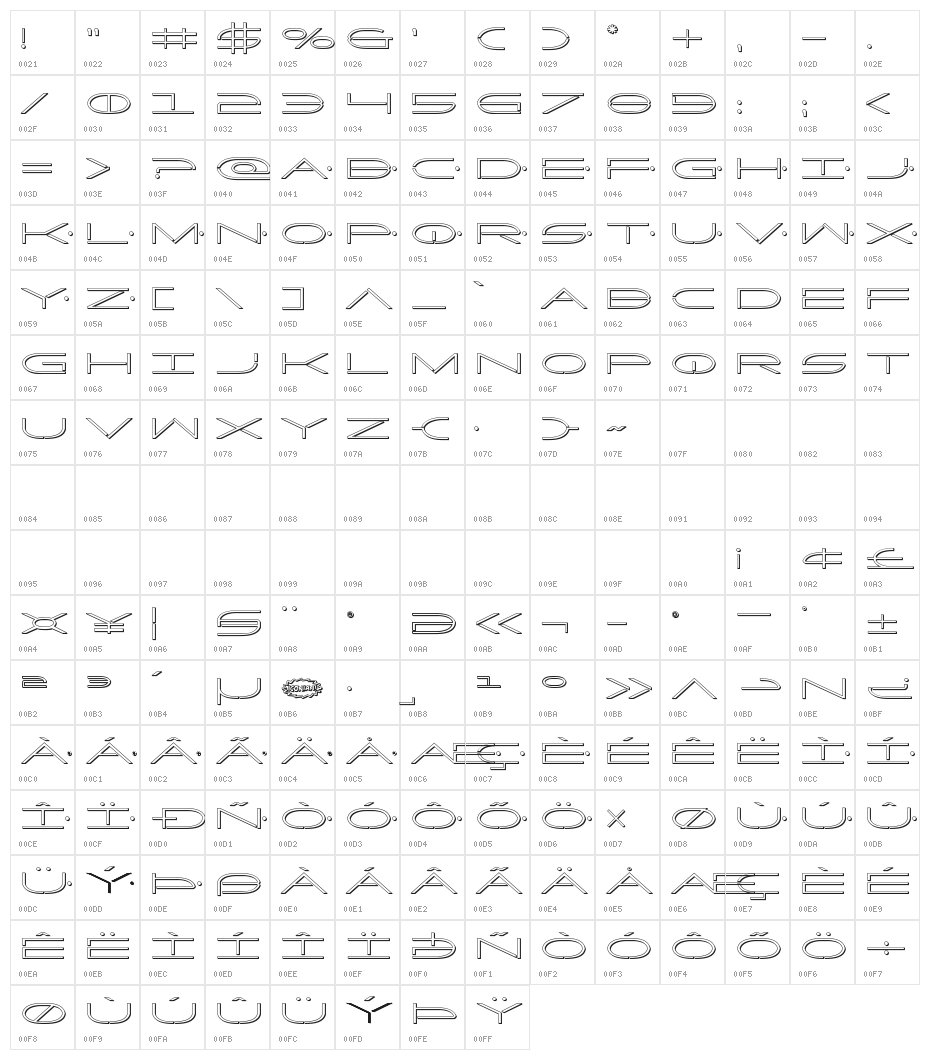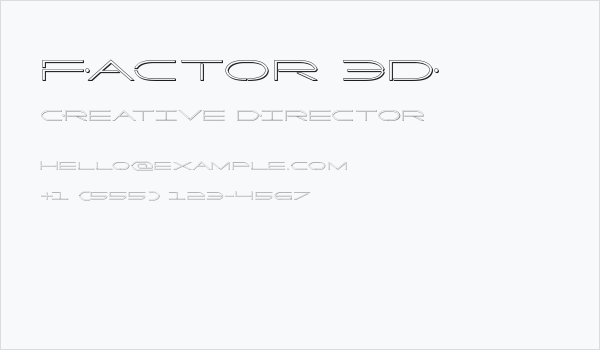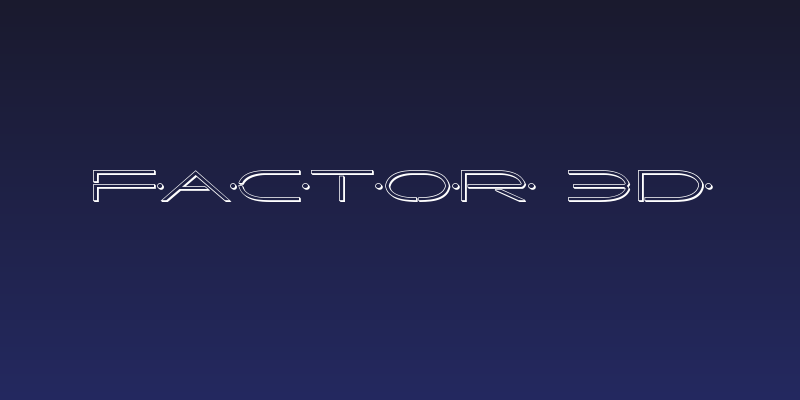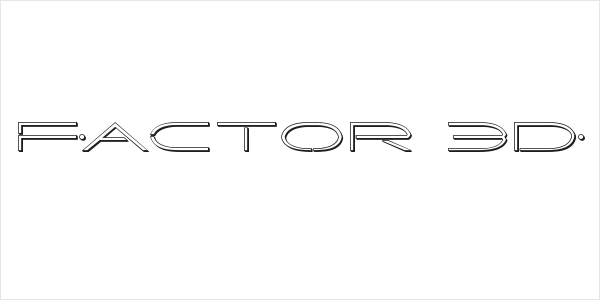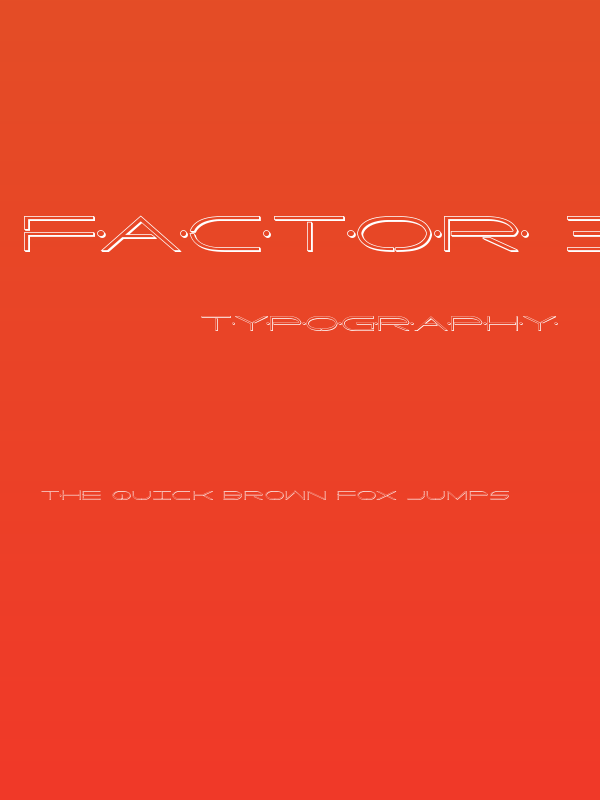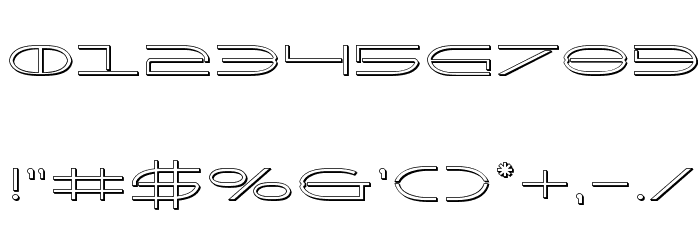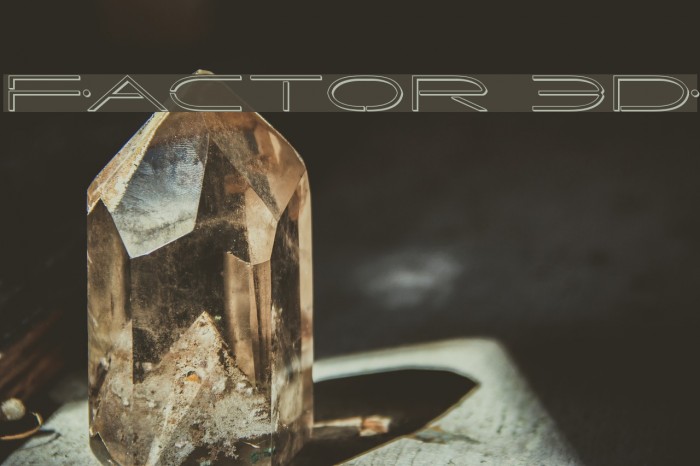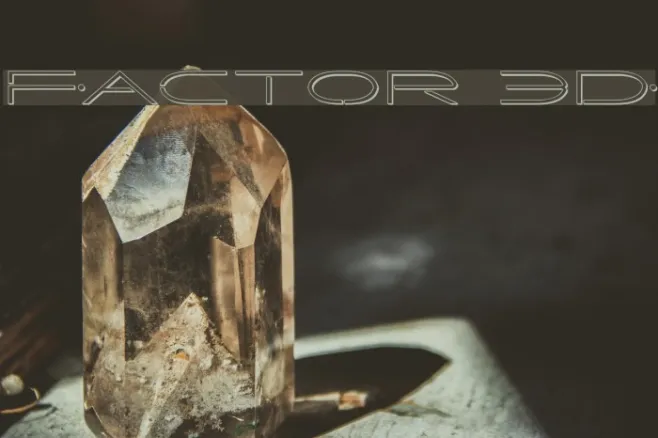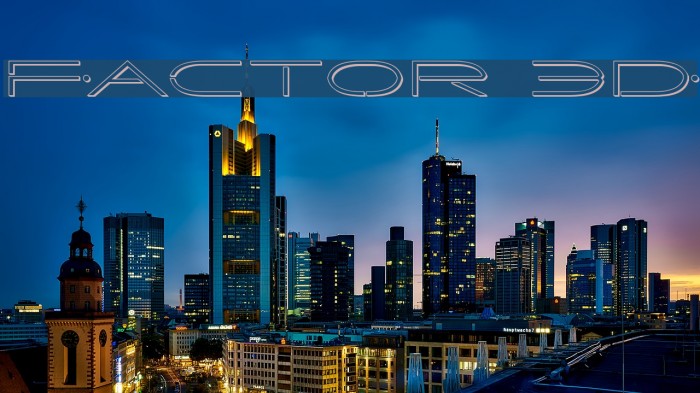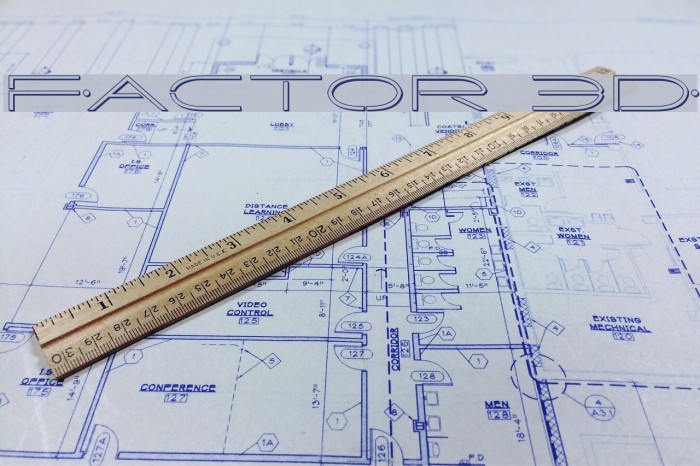
Factor 3D Font
Factor 3D Description
This font features a futuristic and geometric design, characterized by its clean lines and unique cut-out elements within each character. The uppercase and lowercase letters maintain a consistent style, with rounded edges and a distinct, modern aesthetic. The numerals and special characters follow the same design principles, ensuring uniformity across all glyphs. The font's structure is both minimalistic and visually striking, making it suitable for projects that require a contemporary and innovative look. Its distinct style is ideal for capturing attention while maintaining readability.
| Proposed Projects | Ideal for technology branding, sci-fi themed designs, modern advertising, and innovative product packaging. |